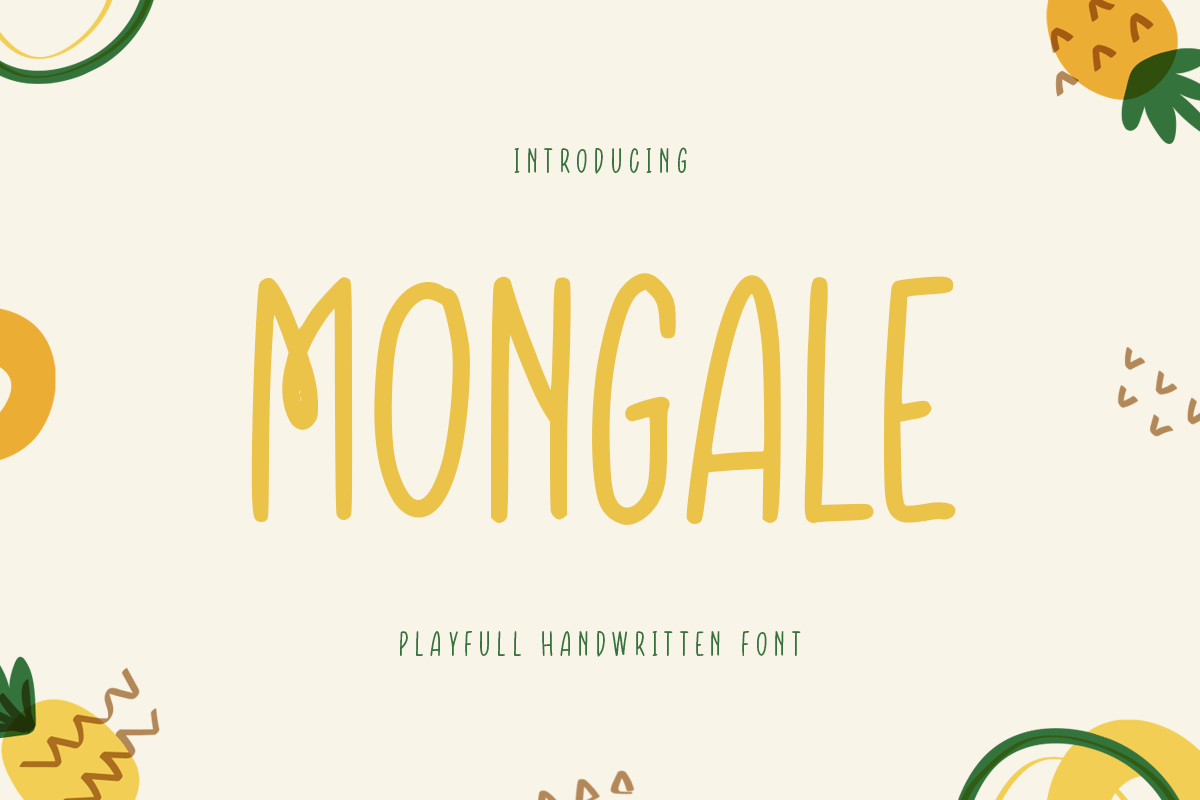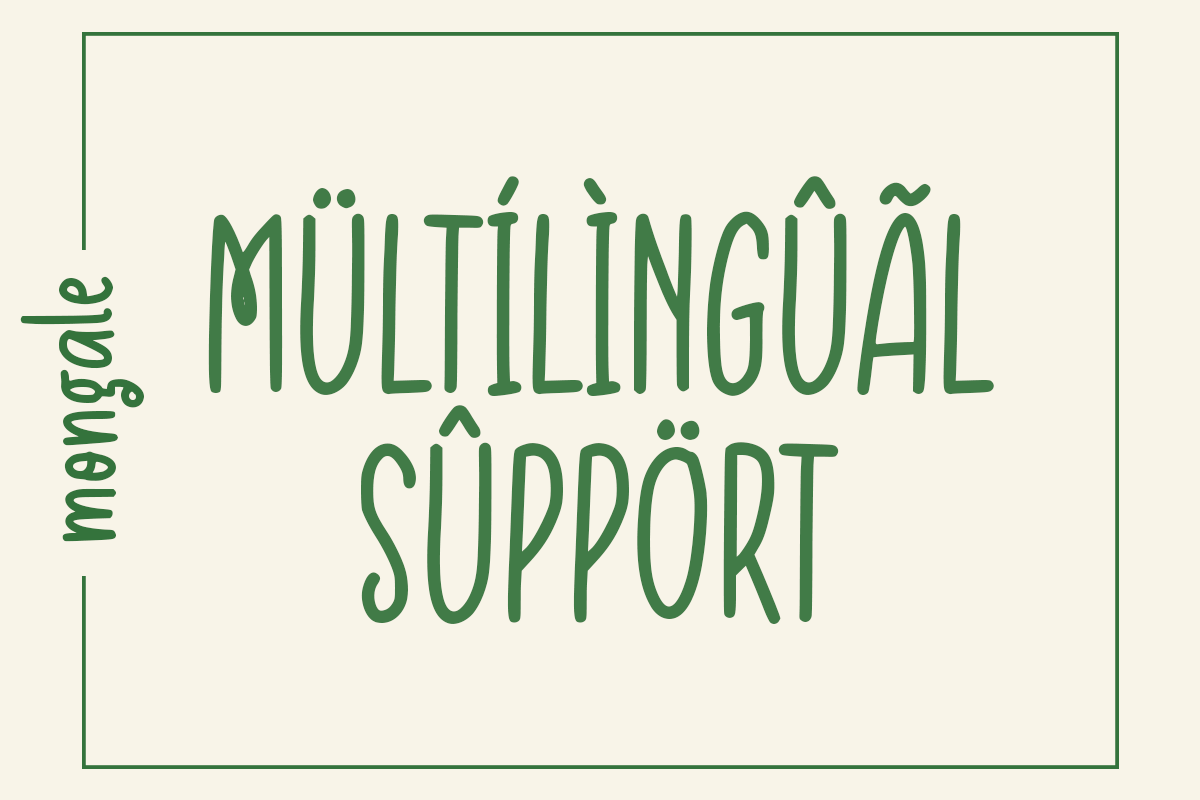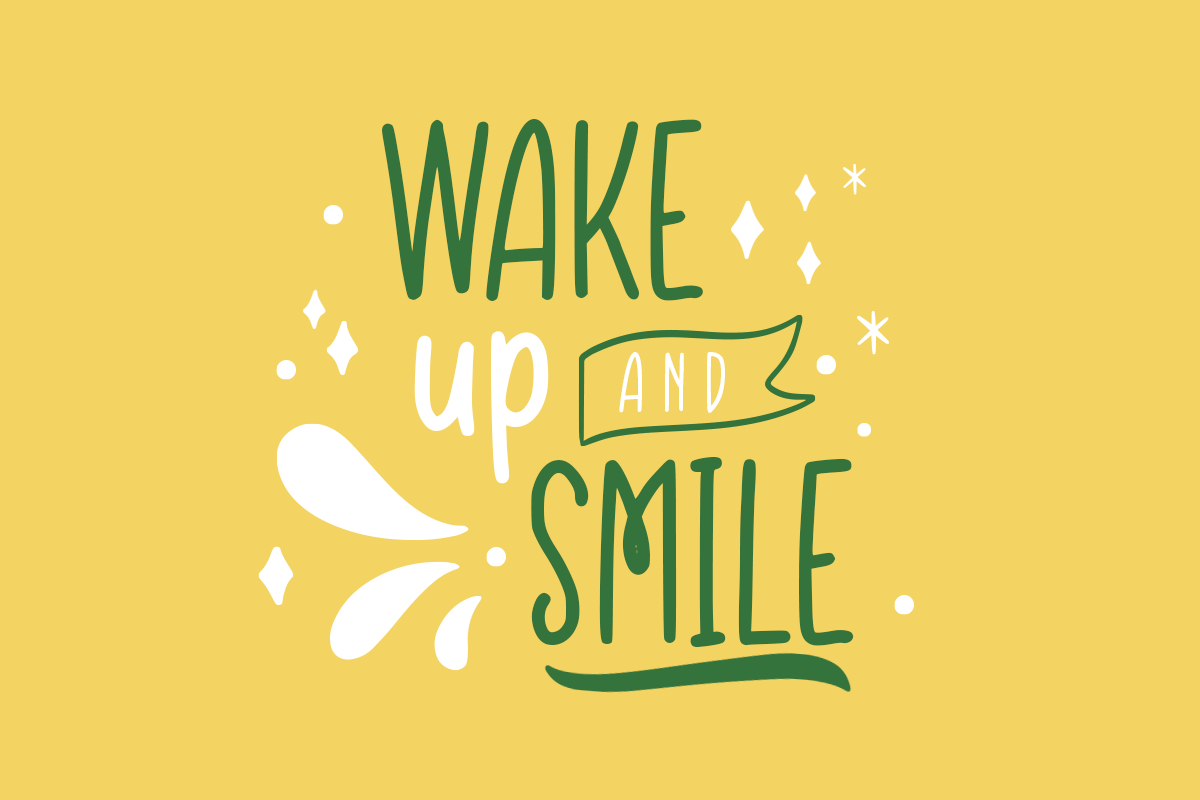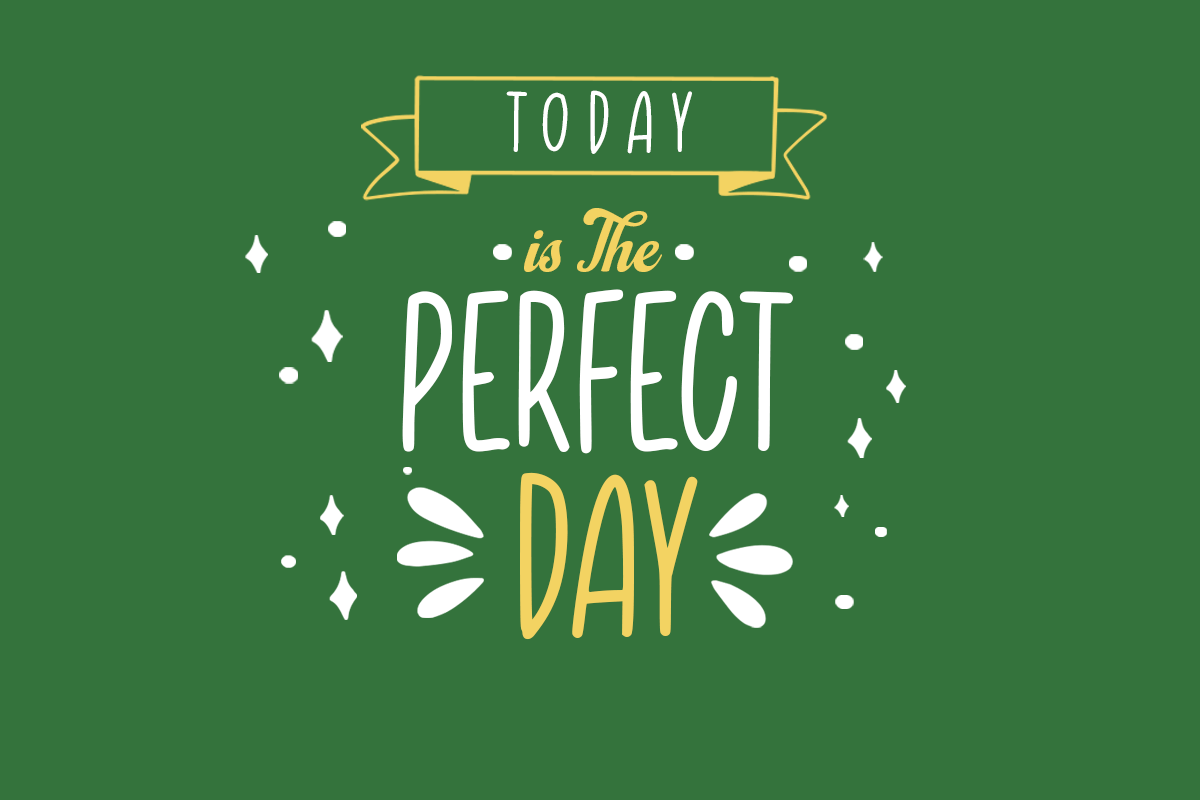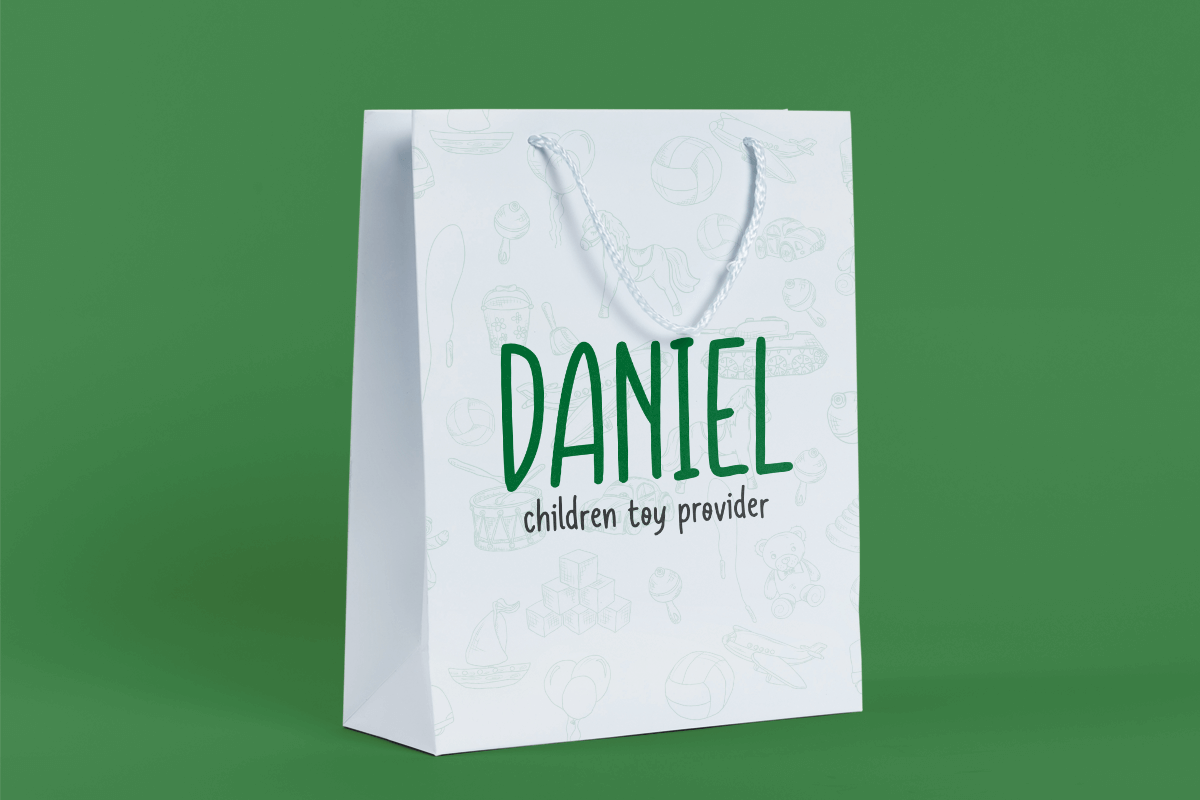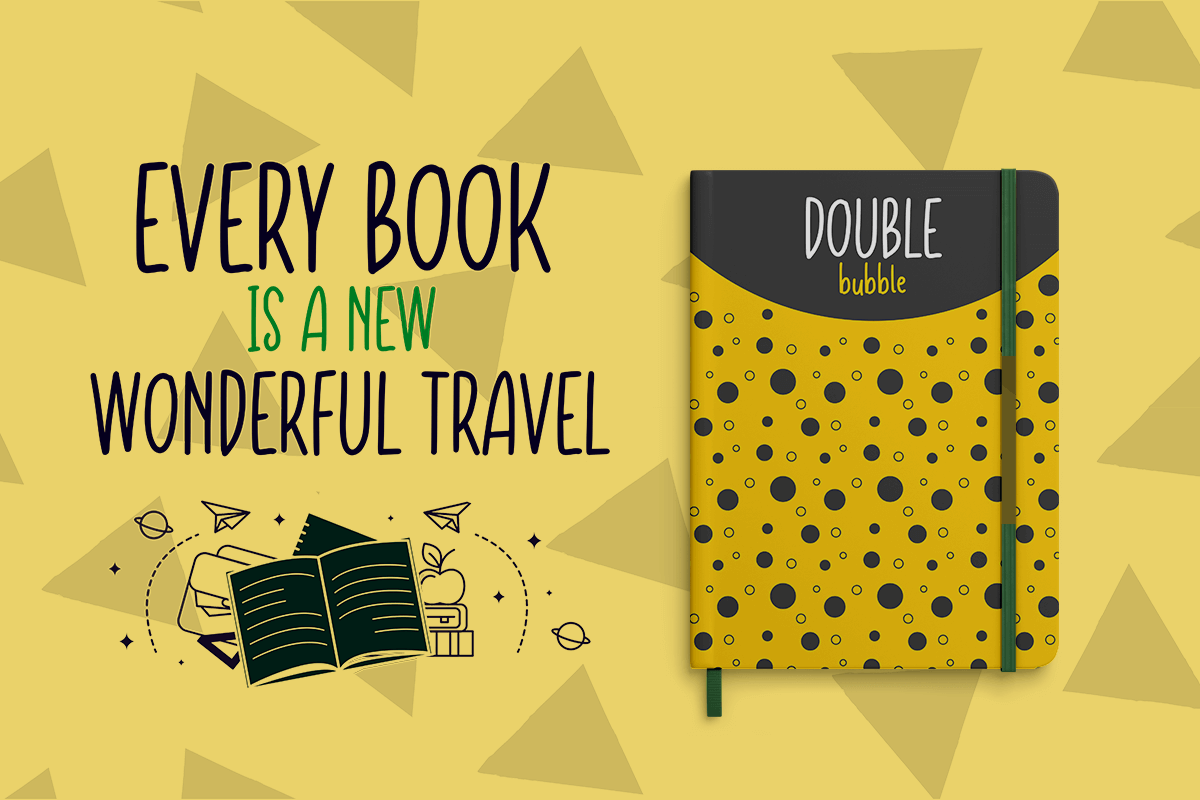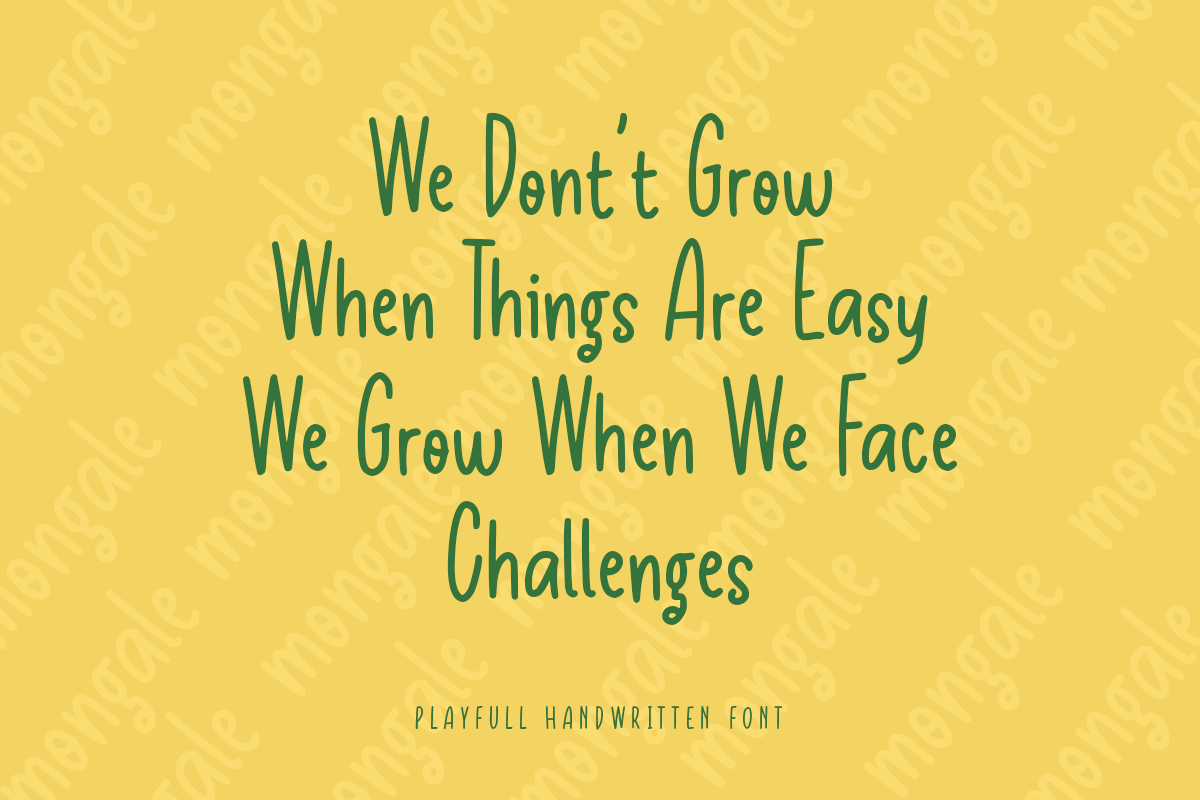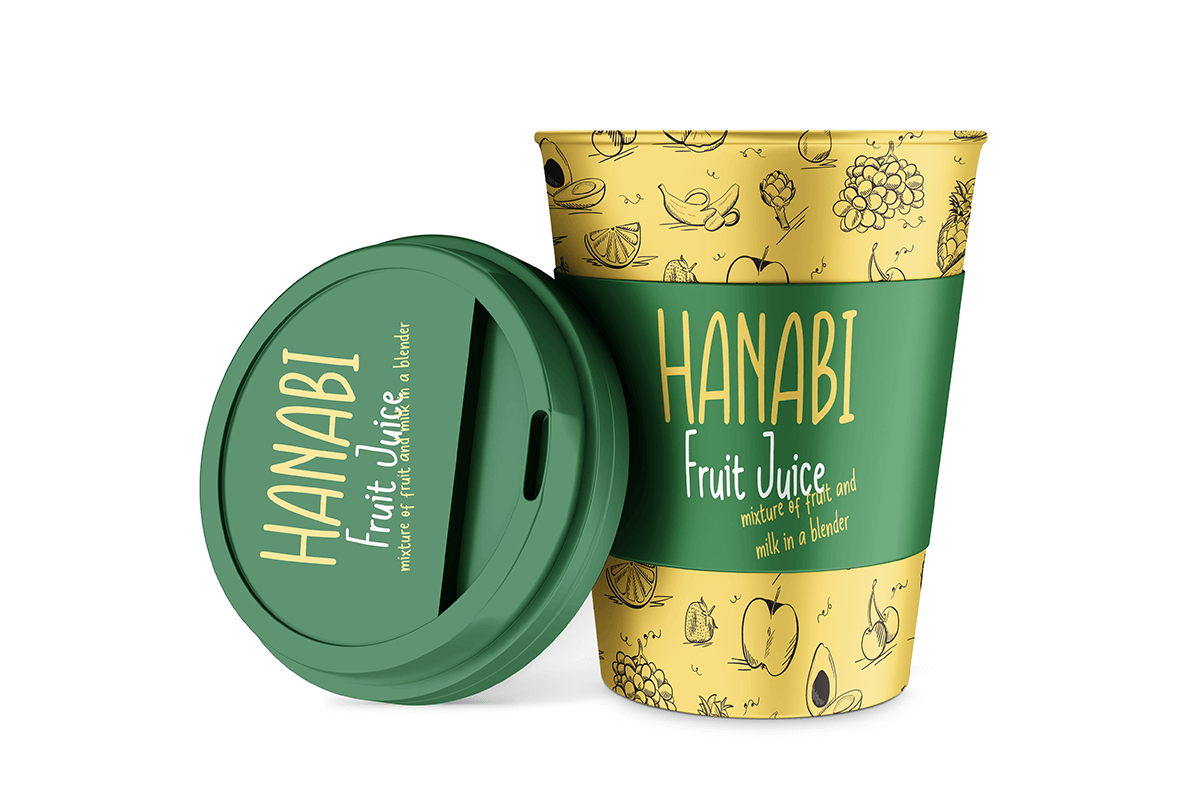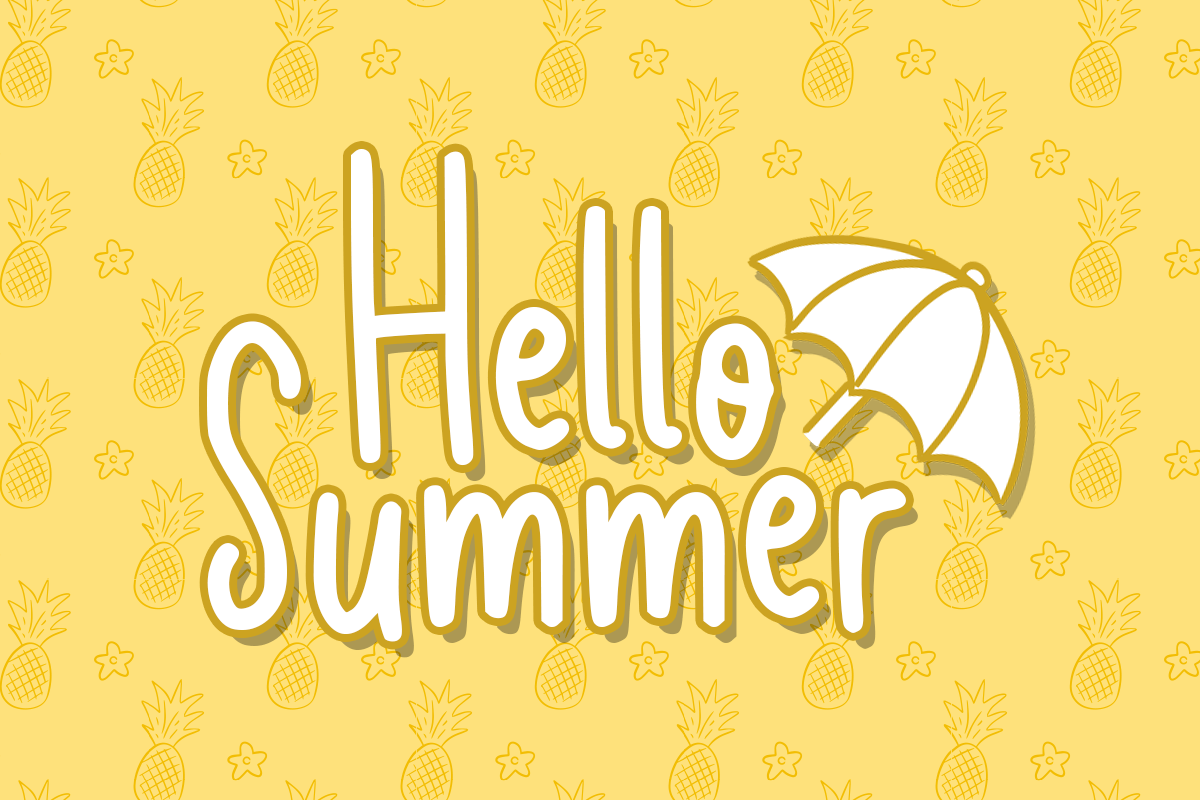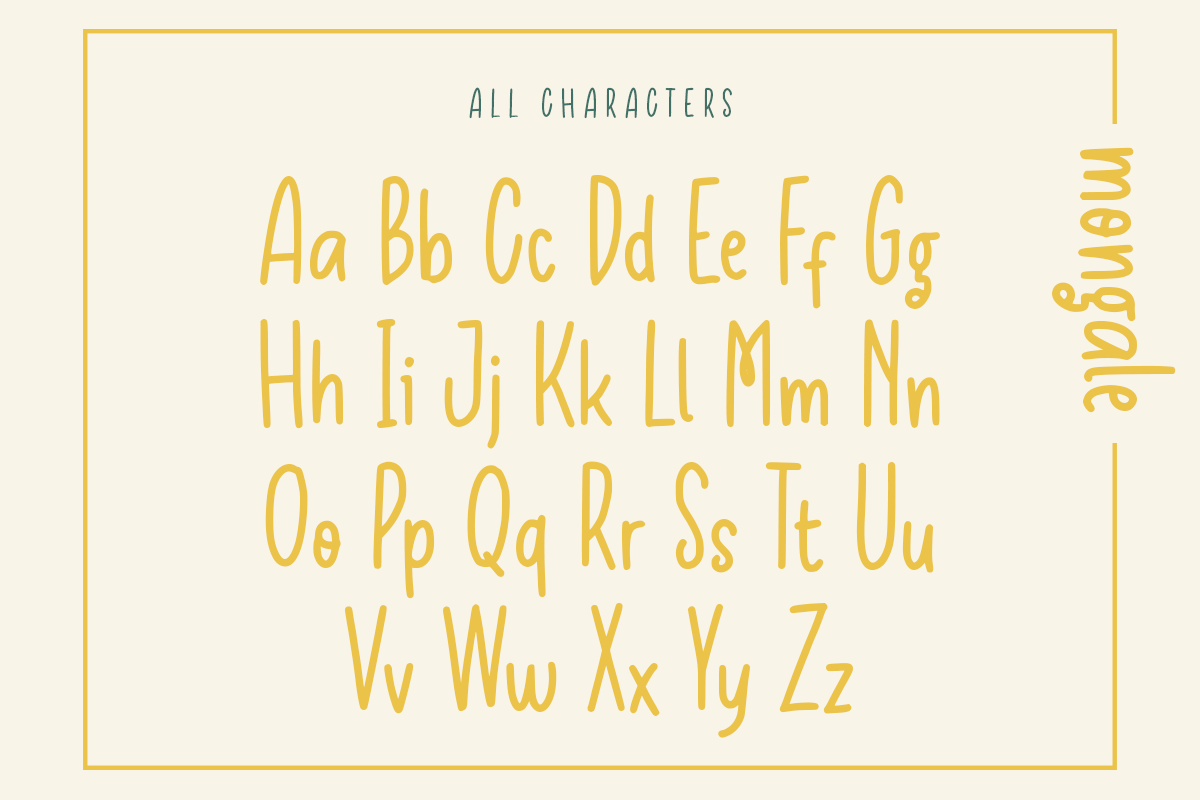
Mongale
-Playful Handwritten Font
Mongale
Mongale is A Playfull Handwritten Font with cute and beauty style and so charming. This font specially crafted for your branding, quotes design projects or cute logo, unique, modern for any designs such as print, merchandise, and so many more with easy to use but unique results are so playful.